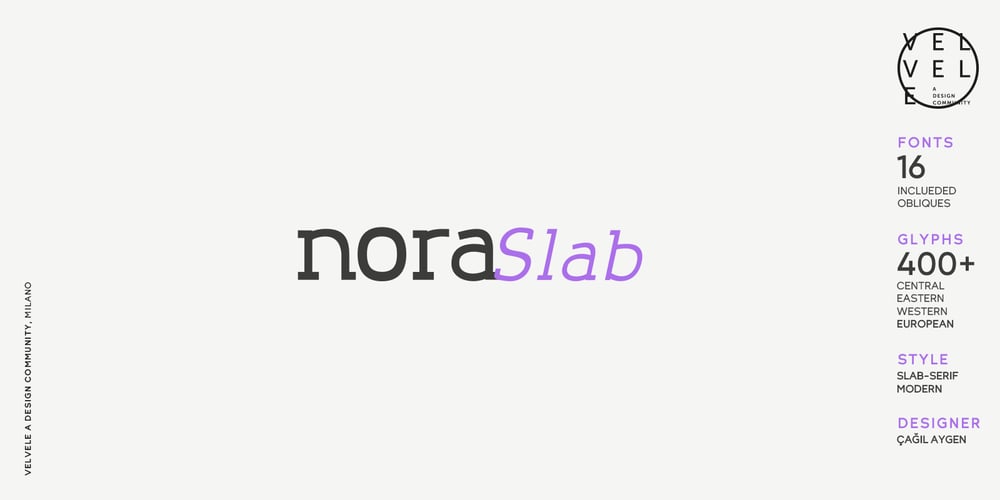
Nora Slab Font Family was designed by Çağıl Aygen and published by vve.type. Nora Slab contains 16 styles and family package options. Nora Slab blends a geometric inspiration with warm humanist elements, making it the perfect choice for when you need a fresh, contemporary slab serif typeface. The companion Nora Grotesque makes the Nora family a real workhorse for any use, including web, digital, print, branding and signage. Nora Slab has a large x-height and open counterforms, making it easily readable. It supports multiple languages: Central and Eastern European as well as Western European languages. It has eight weights with related obliques.